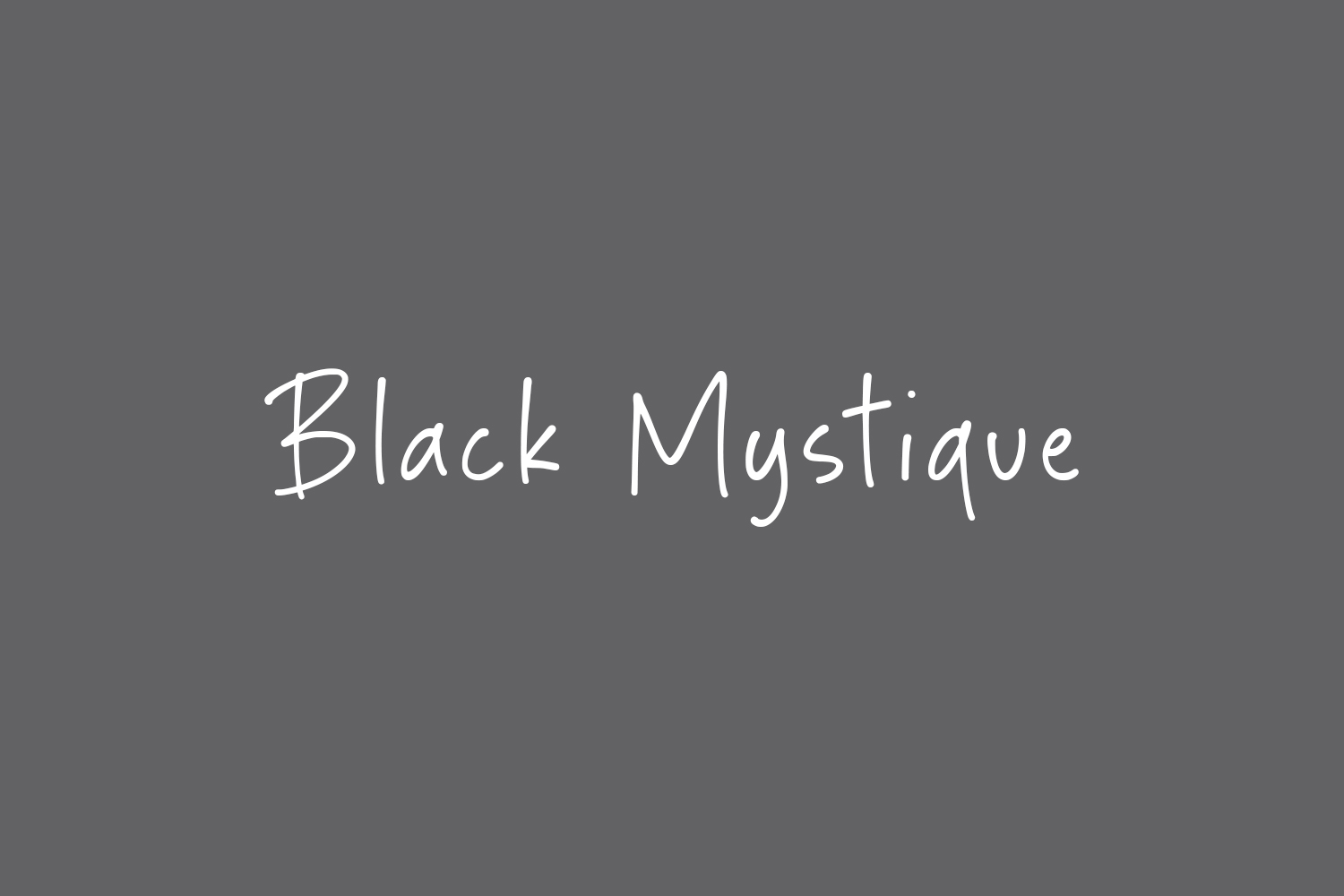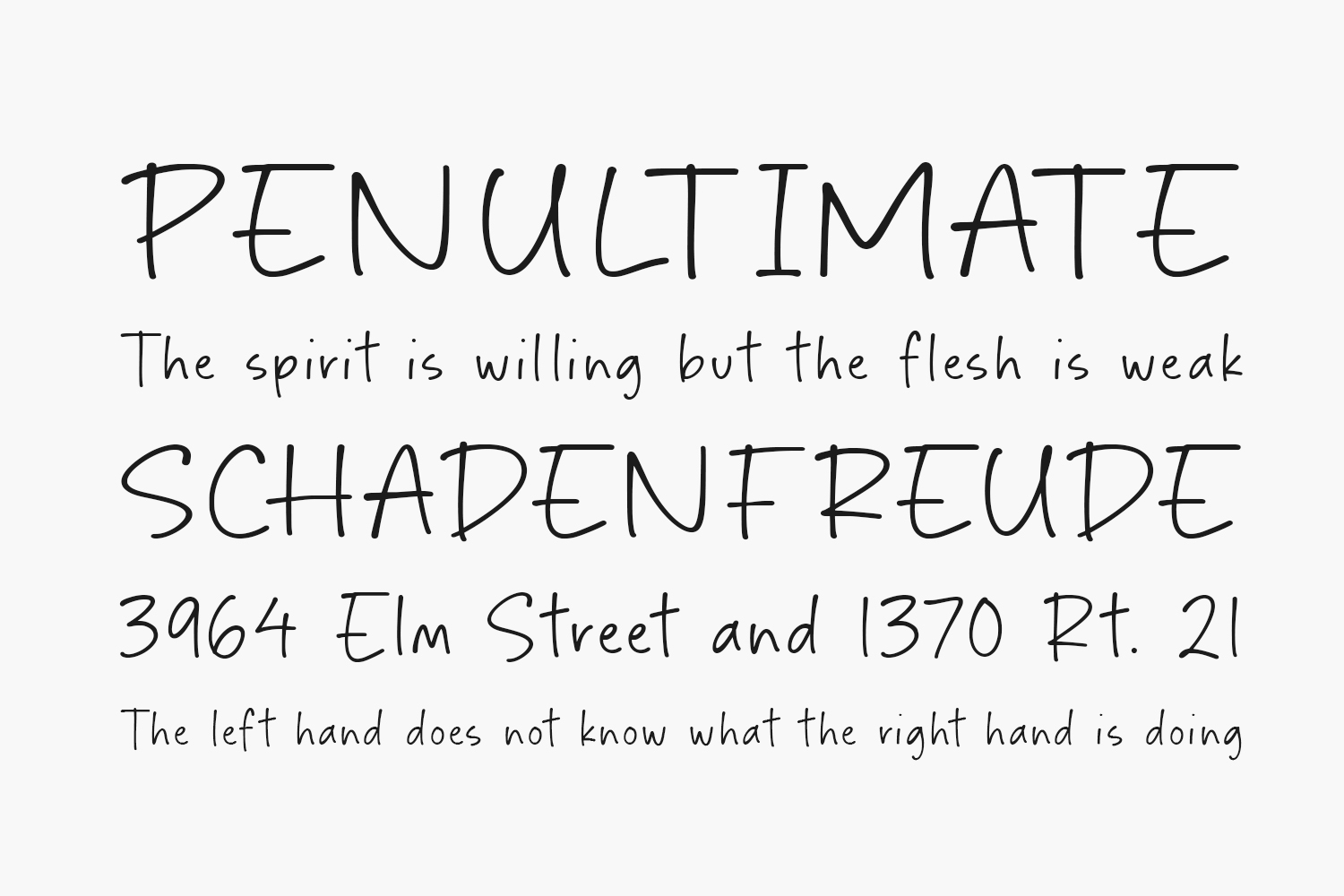
Discover the exquisite elegance of Black Mystique Free Font, a meticulously crafted handwritten font tailored just for you! Ideal for enhancing product packaging, elevating branding projects, captivating magazine layouts, engaging social media posts, enchanting weddings, or simply adding captivating words atop any background. Download the font for free if you need it for personal use or purchase the full version for commercial use.
Designed by Timur Type